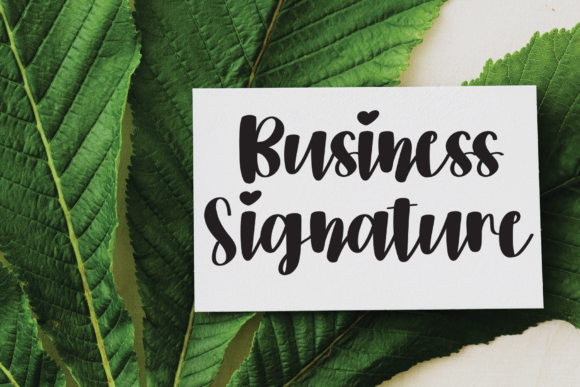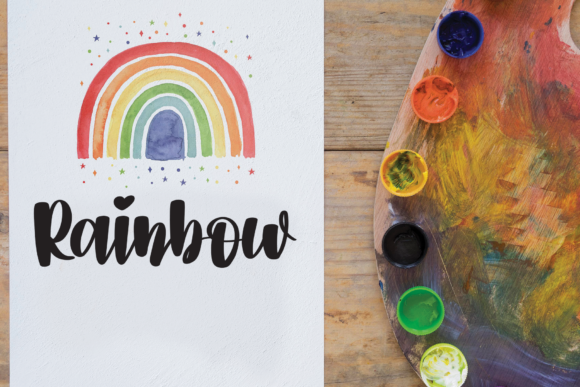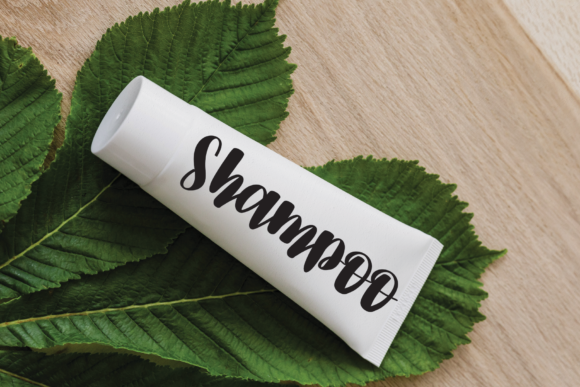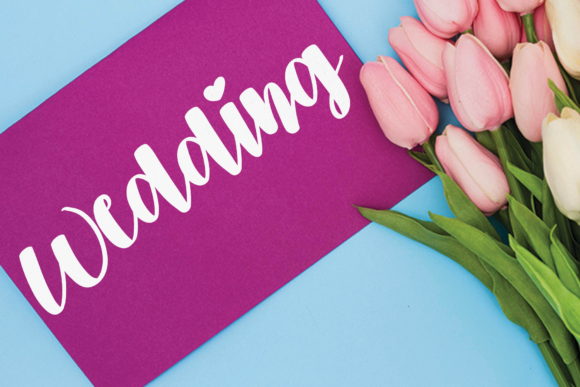
Butter Font
About Butter Font
Butter is a cool, fun and chic handwritten font. Whatever the topic, this font will be a wonderful asset to your font library, as it has the potential to enhance any creation.